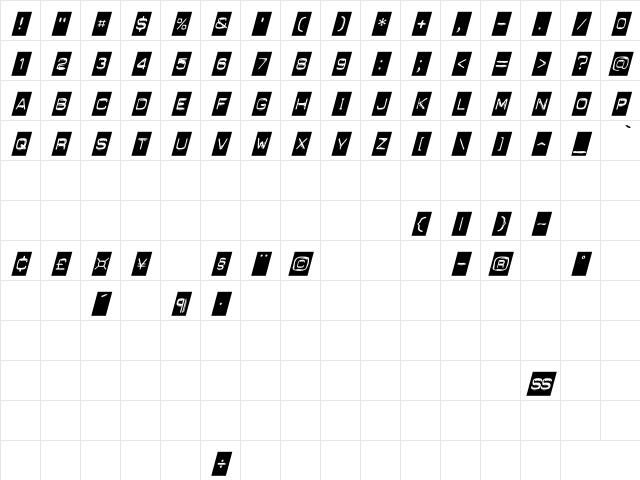
Punch Label Italic Free Font
Punch Label Italic
Design Context for Punch Label
Punch Label is a composed and adaptable typeface that performs quietly and consistently across a wide range of design contexts. The slanted form adds forward momentum and visual energy.
Pro Tip: Use Punch Label for emphasis, pull quotes, and subheadings where its slanted energy can add rhythm to the layout.